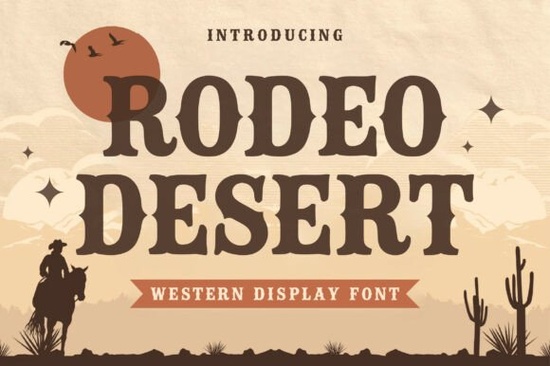
If you're working on a project that calls for rugged authenticity think cowboy boots, desert sunsets, or vintage rodeo posters the Rodeo Desert Font brings just the right mix of boldness and rustic charm. Designed with strong serifs and weathered curves, it captures the spirit of the American West without leaning into cliché. Whether you’re printing T-shirts for a local ranch event, designing signage for a country store, or crafting invitations for a barnyard wedding, this font adds character that feels both nostalgic and intentional.
What makes Rodeo Desert stand out for western-themed projects?
Unlike cleaner modern display fonts, Rodeo Desert leans into its rough-hewn personality. The letterforms feature subtle irregularities and thick-thin contrasts that mimic hand-painted signs you’d find outside an old saloon or feed store. It’s not overly distressed just enough texture to feel genuine. This balance makes it versatile: readable at large sizes for posters or banners, yet detailed enough to shine on smaller items like engraved flasks or custom doormats.
For designers creating assets in niches like agritourism, western apparel, or heritage branding, this font bridges nostalgia and professionalism. It pairs especially well with natural textures (wood grain, burlap, leather) and earth-toned color palettes think burnt orange, sage green, and dusty rose.
How does it compare to other bold display fonts?
If you’ve browsed Creative Fabrica’s collection, you might already know fonts like Thick Juliet, which offers dramatic flair with romantic curves, or Comic Thick, a playful, rounded option great for casual branding. Rodeo Desert sits in a different lane it’s not whimsical or elegant, but grounded and narrative-driven.
Similarly, while Urban Tall gives a sleek, modern vertical punch and Block Retro channels 1970s signage, Rodeo Desert taps into a distinctly rural, early-20th-century aesthetic. You wouldn’t use it for a tech startup but for a horseback riding tour logo or a line of artisan jerky packaging? Absolutely.
Who should consider using this font?
- Print-on-demand sellers creating western-themed mugs, T-shirts, or wall art
- Small farm or ranch owners building cohesive branding for markets or events
- Event planners designing invitations, menus, or signage for rustic weddings or county fairs
- Crafters making wood signs, embroidered patches, or laser-cut ornaments
- Graphic designers developing authentic-looking assets for heritage brands or regional tourism
One practical note: because Rodeo Desert is a display font, it’s best used for headlines, logos, or short phrases not body text. Its personality shines when given space to breathe.
Where can you see it in action?
Imagine “Welcome Y’all” stitched onto a porch doormat with frayed edges. Or “Desert Rose Rodeo – Est. 1948” stamped across a vintage-style poster with rope borders. Even product labels like for small-batch hot sauce or handmade soap gain instant storytelling appeal when set in this typeface.
Tips for pairing and using Rodeo Desert effectively
- Keep supporting fonts simple. Pair it with a clean sans-serif (like Montserrat or Lato) for contrast and readability.
- Avoid over-decoration. Let the font’s character lead skip extra shadows or outlines unless they serve the theme.
- Test at scale. What looks great on a 24"x36" poster might lose detail on a 2" keychain. Always preview your final output size.
- Use sparingly. One strong headline in Rodeo Desert often says more than three competing decorative elements.
Before you finalize your design, ask: does this font support the story I’m trying to tell? If your project leans into authenticity, heritage, or the quiet drama of wide-open spaces, Rodeo Desert likely fits better than a generic bold font ever could.